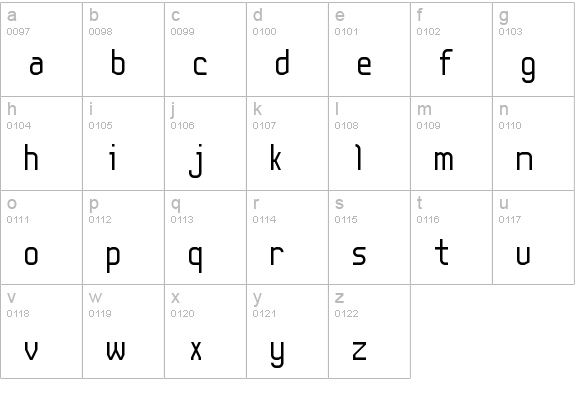
The Kernel Panic NBP font is a visually striking typeface that is sure to make a bold statement in any project. Its unique design combines elements of modernity with a touch of edginess, resulting in a font that exudes confidence and creativity. With its sharp lines and intricate details, the Kernel Panic NBP font is perfect for capturing attention and adding a sense of sophistication to any design. Whether you're creating a logo, a poster, or even a website, this font will effortlessly elevate your project to the next level. One of the best things about the Kernel Panic NBP font is that it is freely available to download at FontsMarket.com. This means that you can easily access this stunning font without any hassle or cost. So whether you're a professional designer or a casual user, you can enjoy the benefits of this font without breaking the bank. The versatility of the Kernel Panic NBP font is another reason why it has become a favorite among designers. Its clean and legible letters make it suitable for a wide range of applications, from branding and advertising to packaging and invitations. It can easily adapt to various design themes and styles, ensuring that your project always looks polished and professional. In addition to its aesthetic appeal, the Kernel Panic NBP font also offers excellent readability. Each letter is carefully crafted to ensure that it stands out clearly, even in small sizes or low-resolution settings. This makes it a practical choice for both print and digital projects, ensuring that your message is effectively communicated to your audience. So whether you're looking to add a touch of modernity to your designs or simply want to make a statement, the Kernel Panic NBP font is the perfect choice. Its striking visual appeal, versatility, and free availability make it a must-have for any designer or creative enthusiast. Download it now at FontsMarket.com and unlock a world of possibilities for your next project